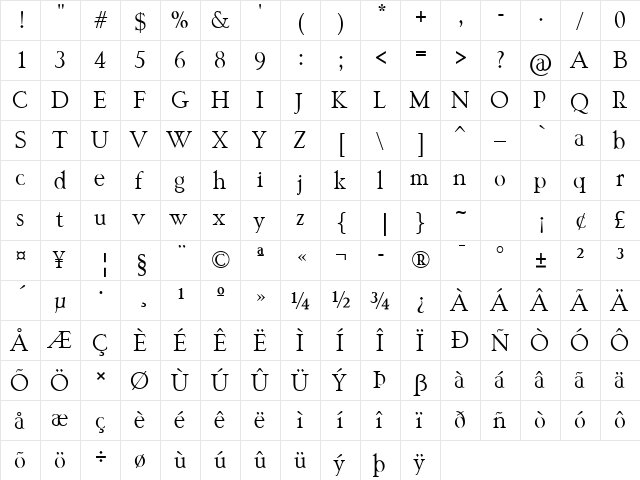
Garava Regular Font Preview
Garava Regular
Garava Regular Font Details
| Foundry | Association for Insight Meditation |
| Designer | Bhikkhu Pesala |
Design Context for Garava Typeface
Garava takes a measured approach to typography — its balanced proportions and neutral character make it a reliable workhorse for both digital and print work.